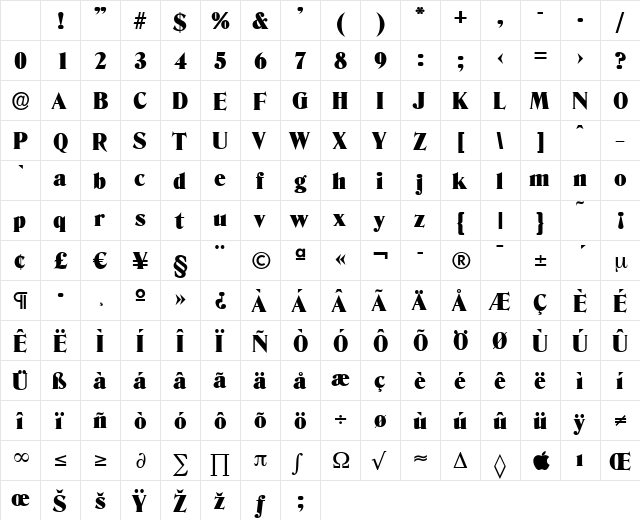
ThomasBecker-Black Regular
ThomasBecker-Black Family
ThomasBecker-Black Regular
ThomasBecker-Black Regular Font Preview
ThomasBecker-Black Regular Uppercase Preview
ThomasBecker-Black Regular Lowercase Preview
ThomasBecker-Black Regular Numeric Preview
ThomasBecker-Black Regular Character Map
Complete ThomasBecker-Black Regular glyph index. Displaying only characters natively supported by ThomasBecker-Black Regular font.
Design Context for ThomasBecker-Black
ThomasBecker-Black is a composed and adaptable typeface that performs quietly and consistently across a wide range of design contexts.
Pro Tip: Use ThomasBecker-Black in both headline and body roles to test its range before committing to a single application.